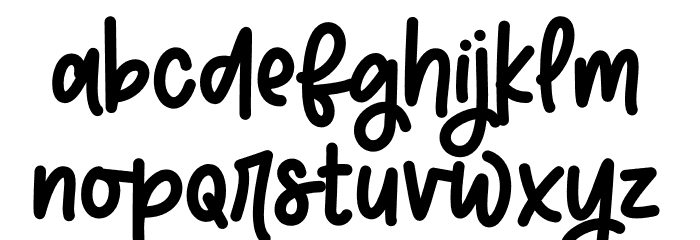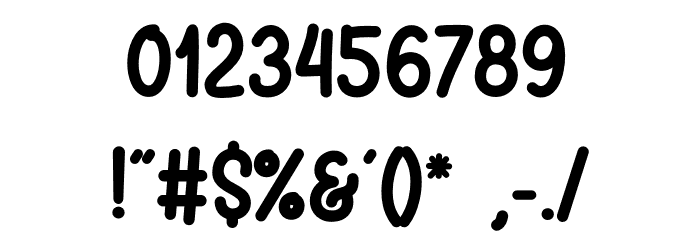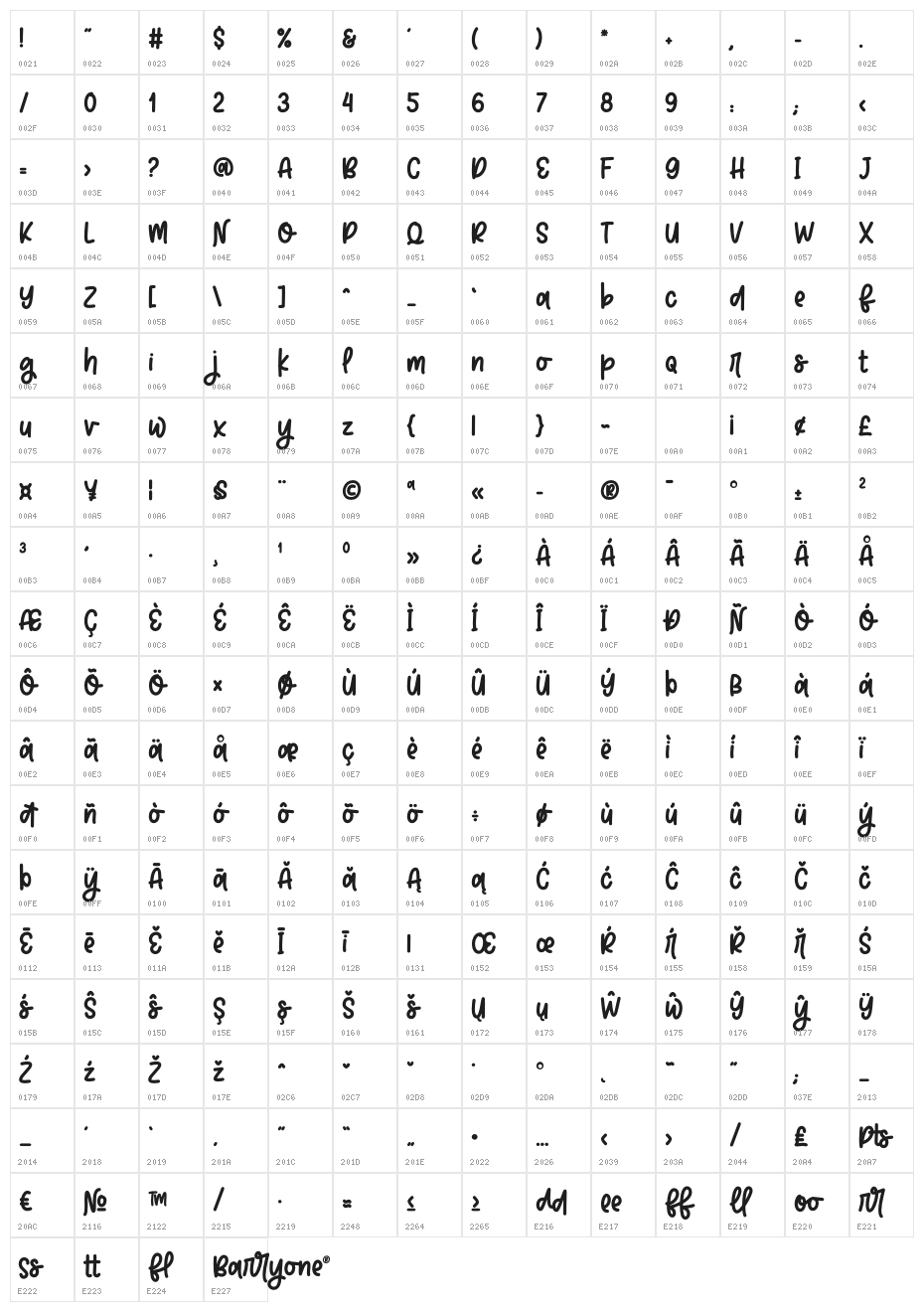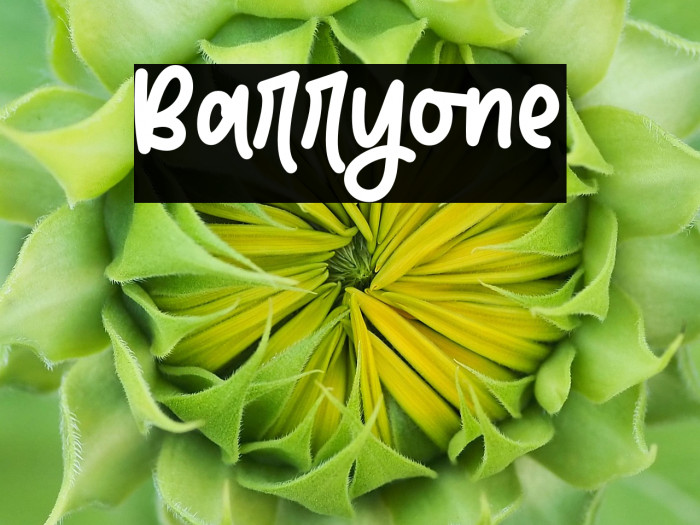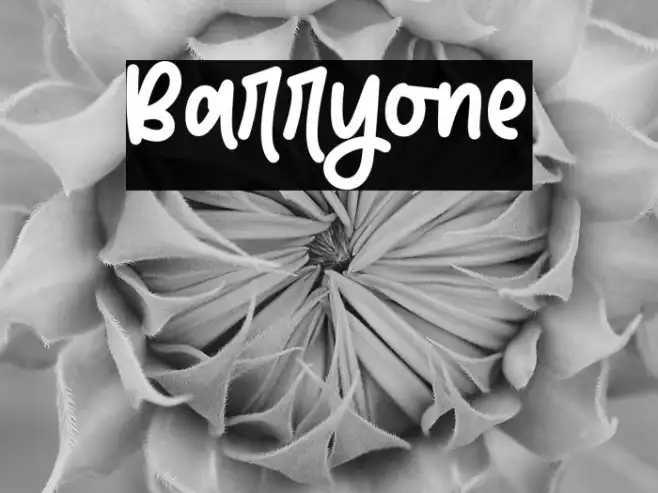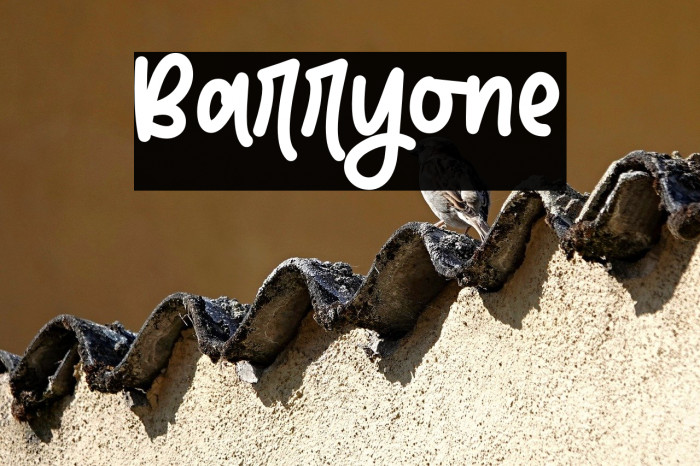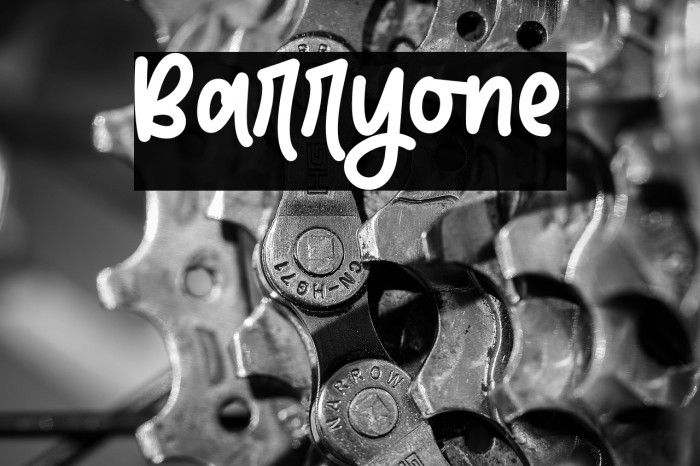
Barryone Font
This font features a playful and bold handwritten style, characterized by its thick, rounded strokes and casual, flowing forms. The uppercase letters are slightly larger and more prominent, while the lowercase letters maintain a consistent, friendly appearance. The numerals are clear and easy to read, matching the overall whimsical style. Special characters are well-integrated, maintaining the same playful aesthetic. This font exudes a sense of fun and informality, making it ideal for projects that require a personal touch or a lively, engaging look.
A bold, playful handwritten font with rounded strokes and a casual style.
- Proposed Projects: Ideal for greeting cards, children's books, playful branding, and social media graphics.
- Category: Handwritten
- Overall Style: Playful, Casual
- Use Case: Headlines, Logos, Informal Text